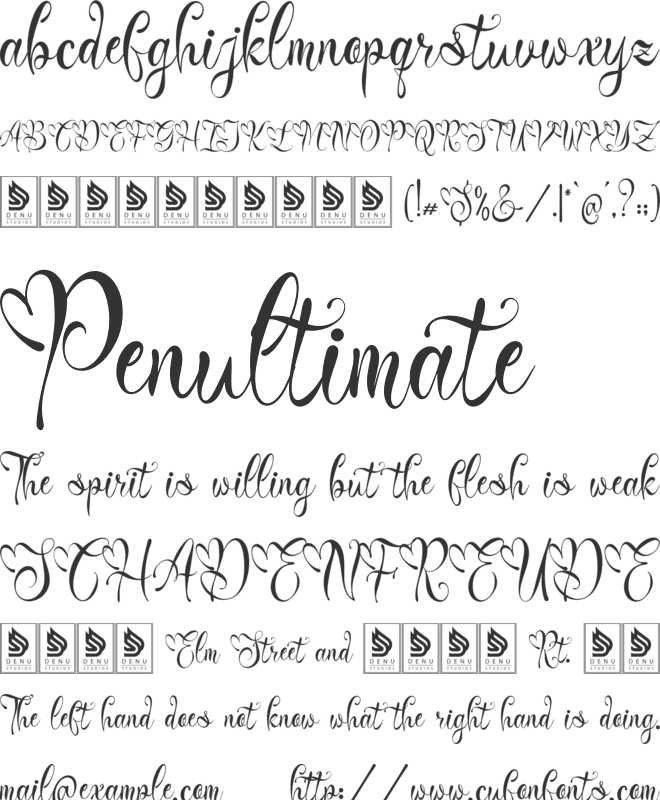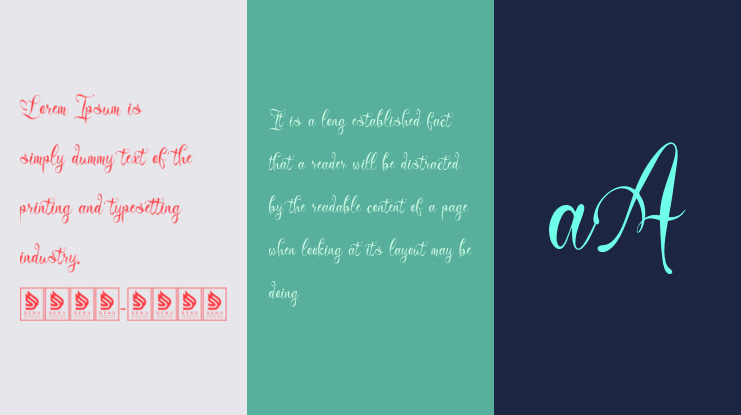
Jamytta | Romantic Script, is suitable for any projects such as: logos, branding projects, homeware designs, product packaging, mugs, quotes, posters, shopping bags, t-shirts, book covers, name card, invitation cards, greeting cards, label, photography, watermark, special events, and all your other lovely projects that need a Script taste.